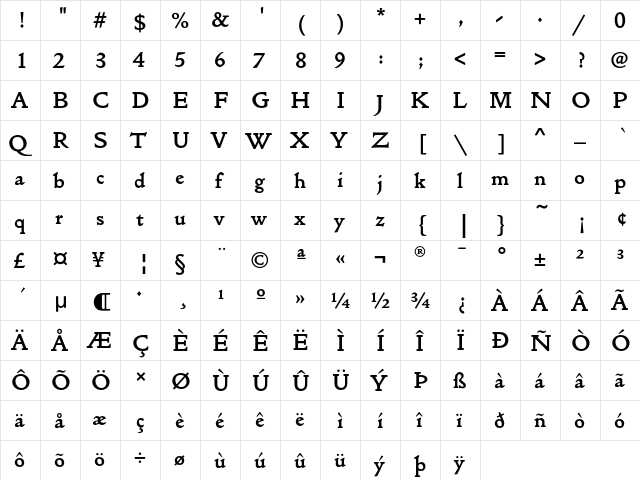
GoldenTypeEF Bold
Design Context for GoldenTypeEF Typeface
GoldenTypeEF offers clean, dependable letterforms without strong stylistic allegiance, making it a practical choice for designers who need flexibility. Its bold stroke weight gives it real presence on the page.